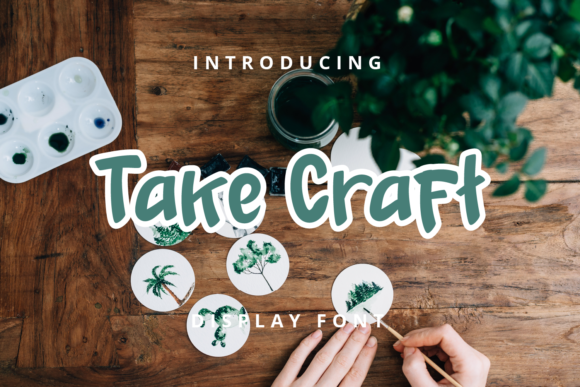
Introducing Take Craft Font, the ultimate handwritten font that will transform your designs with its authentic and realistic flair. Step into the world of captivating chalkboard quotes and engaging teaching materials where Take Craft's charm shines through.
Get mesmerized by the intricate strokes and flowing curves of Take Craft, meticulously crafted to emulate the genuine beauty of hand-drawn letters. Each character dances across the page, carrying a story of its own, inviting your audience to connect with your message on a deeper level.
Take Craft's versatility is unparalleled, seamlessly adapting to a myriad of creative projects. Whether you're designing logos that exude a personal touch, creating brochures that feel like heartfelt letters, or crafting social media posts that resonate with authenticity, Take Craft is your trusted companion.
With Take Craft at your fingertips, you'll discover a symphony of possibilities. Unleash your creativity and explore the endless applications of this remarkable font. From whimsical invitations that capture hearts to eye-catching posters that demand attention, Take Craft empowers you to make a lasting impression.
Don't settle for ordinary fonts that blend into the background. Embrace the power of Take Craft and watch your designs come alive with a touch of handwritten elegance. As you weave your words into visual masterpieces, you'll feel the satisfaction of creating something truly unique and captivating.
Join the creative revolution and let Take Craft be your muse. Its authentic charm will transform your designs into heartfelt expressions of artistry, leaving an indelible mark on your audience.